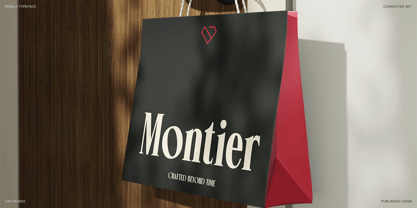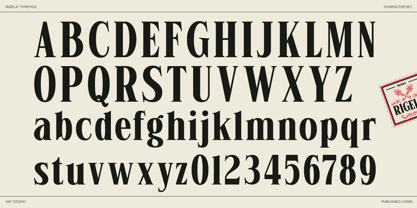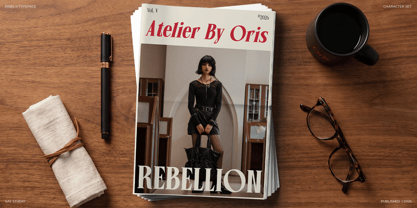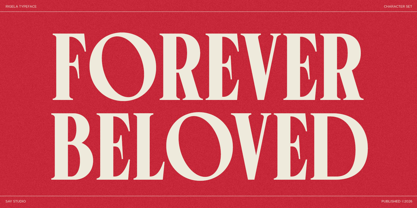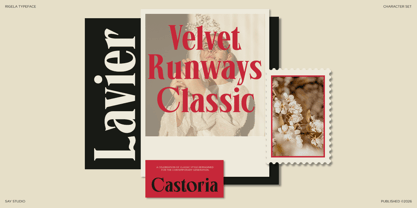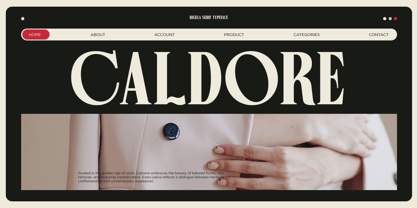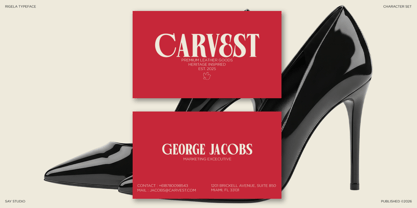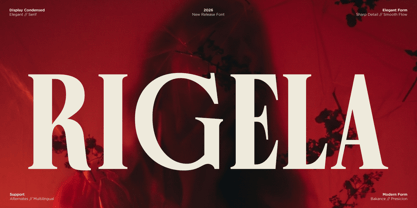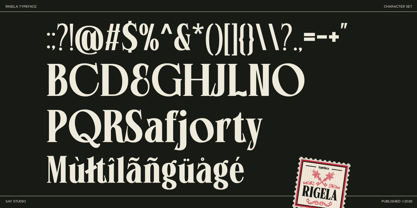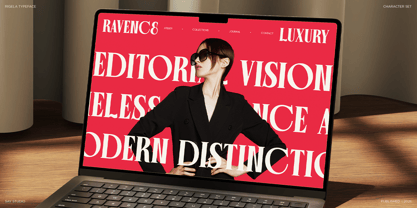
Rigela
by Say Studio
Rigela is an elegant condensed serif font that blends timeless sophistication with contemporary luxury. Designed with refined proportions, graceful contrast, and distinctive high-fashion details, this typeface delivers a commanding presence while maintaining exceptional readability. Every character is crafted to evoke prestige, making Rigela an excellent choice for luxury branding, editorial layouts, premium packaging, and sophisticated visual identities.
Inspired by classic fashion typography and modern editorial aesthetics, Rigela brings a sense of exclusivity and elegance to every project. Its condensed structure allows for impactful headlines and striking compositions, while the carefully balanced letterforms create a harmonious rhythm across magazines, websites, advertisements, and high-end branding materials.
Rigela font perfect for Luxury Branding, Fashion Logos, Editorial Design, Magazine Headlines, Beauty Packaging, Jewelry Branding, Boutique Identity, Wedding Invitations, Premium Advertising, Cosmetic Branding, Luxury Websites, High-End Marketing Materials.
• Regular and Italic
• Stylistic Alternates
• Uppercase and Lowercase
• Number, Symbol, and Punctuation
• Multi Language Support